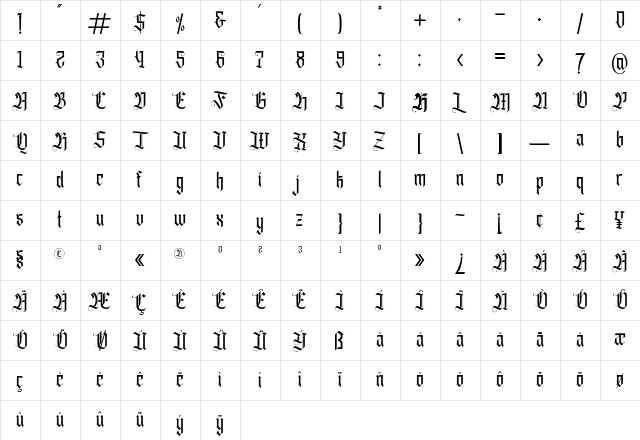
Fasigeko Regular Free Font
Fasigeko Regular
Foundry: Stringlabs
Designer: Stringlabs
Design Context for Fasigeko
Fasigeko is a composed and adaptable typeface that performs quietly and consistently across a wide range of design contexts.